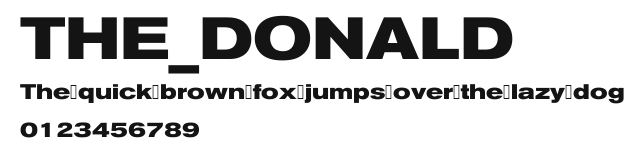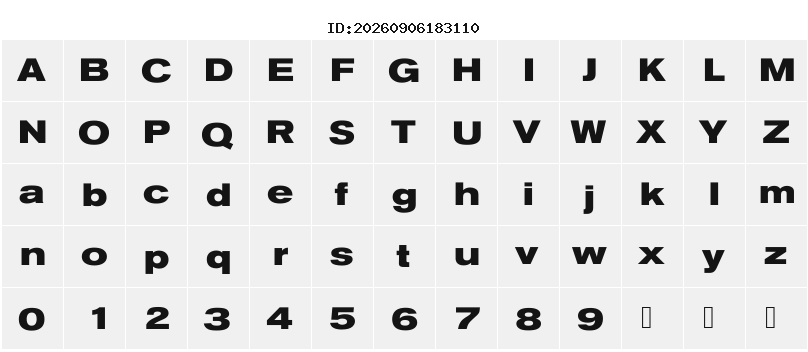
THE_DONALD Preview
• Font Name: THE_DONALD
• Font Style: YUGE!
• Full Font Name: THE_DONALD
About THE_DONALD.ttf
THE_DONALD.ttf is a modern, elegant sans-serif font designed for ultimate readability and visual harmony. Perfect for branding, headlines, web design, and print materials.